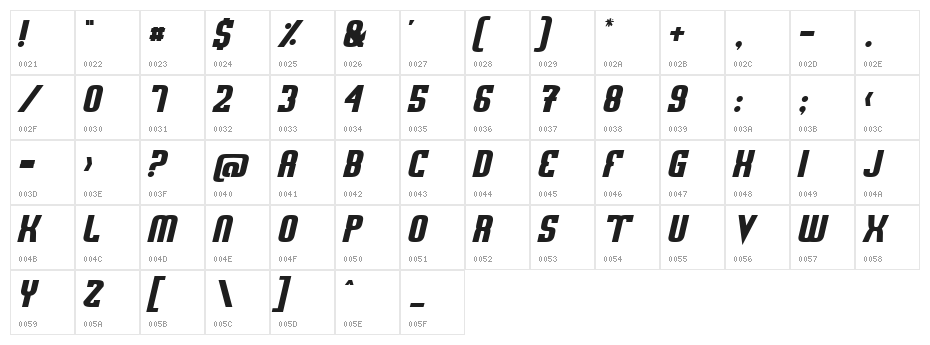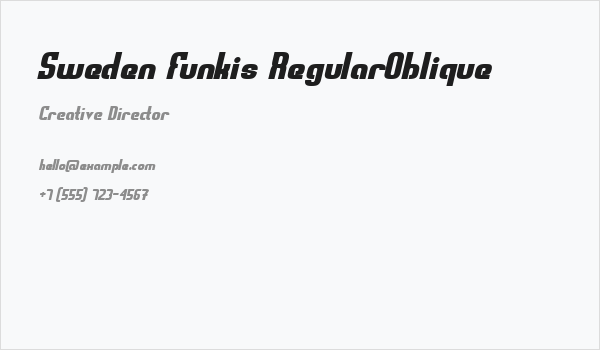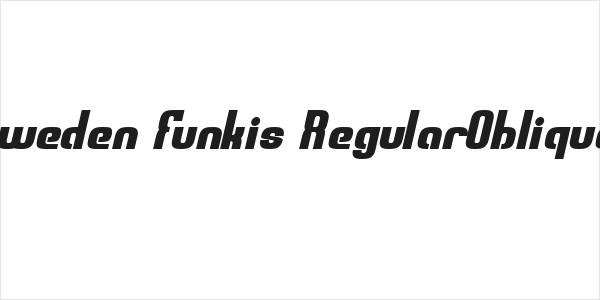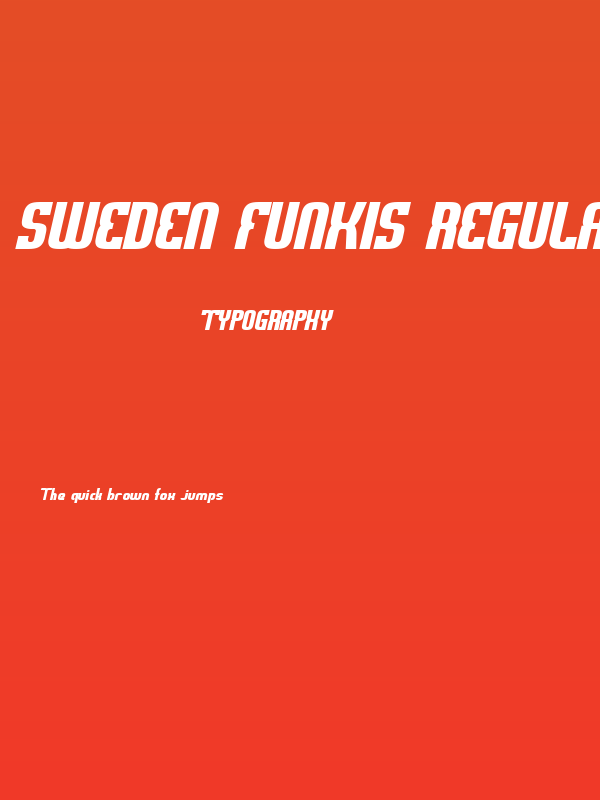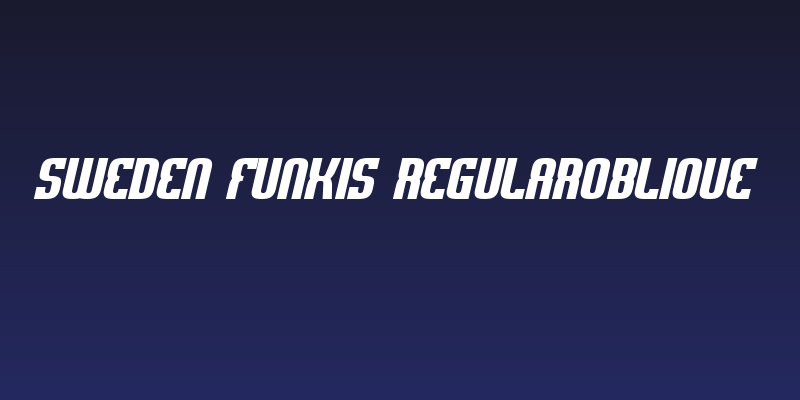
Sweden Funkis RegularOblique Font
Sweden Funkis RegularOblique Description
This font features a bold and dynamic style with a distinct oblique slant, giving it a sense of movement and energy. The characters are robust and slightly condensed, with a modern aesthetic that is both striking and versatile. The uppercase and lowercase letters maintain a consistent weight, while the numerals and special characters are designed to complement the overall style. The font's strong presence makes it suitable for impactful designs, where readability and a contemporary look are essential.
| Proposed Projects | Ideal for branding, advertising, posters, and headlines where a strong and modern impact is desired. |